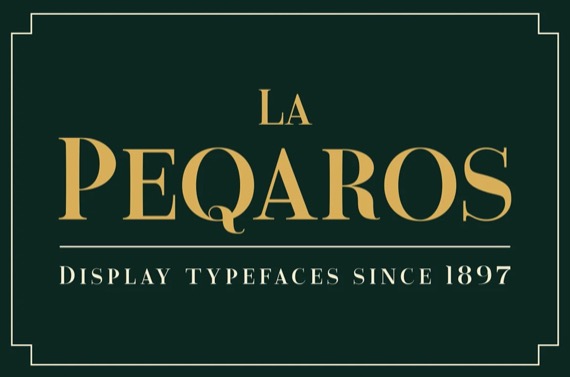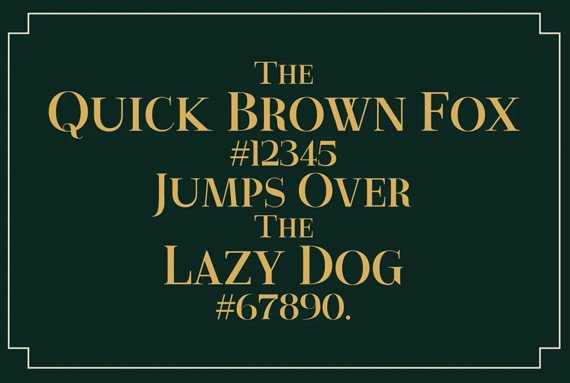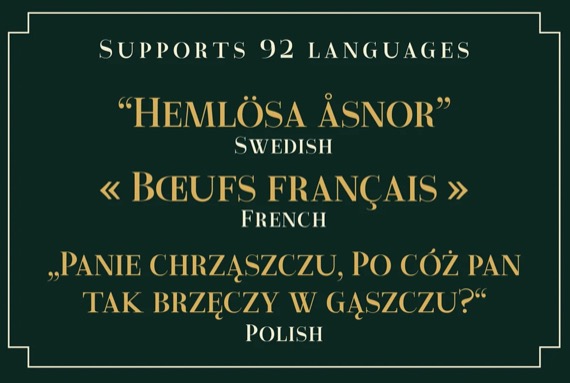
La Peqaros is a chic and modern display font from Suolahti Type that is inspired by old wine bottle etiquettes. It has really warm and elegant feeling. It’s perfect for logos, magazine headlines, restaurant menus, posters, and such.
La Peqaros Display Serif Font